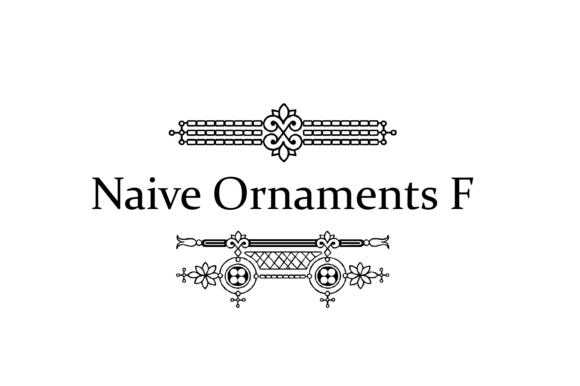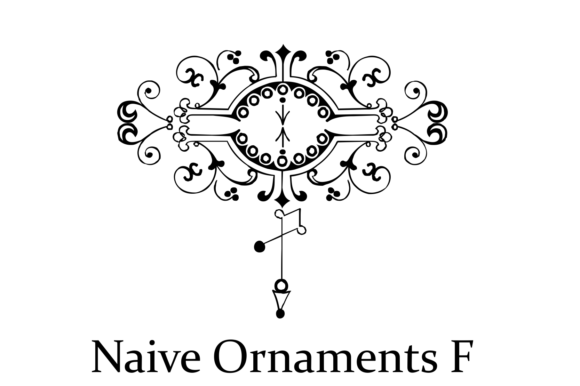
Introduction to Naive Ornaments F Font
As designers, we’ve all been there – staring at a blank canvas, trying to bring a creative vision to life. But sometimes, all it takes is the right design resource to spark inspiration. For me, it was discovering the Naive Ornaments F Font, and I’m excited to share its beauty with you.
This intricate font is a treasure trove of beautiful ornaments, waiting to be used in your next project. With its high quality design, it’s perfect for adding a touch of elegance to your creative project. Whether you’re working on a brochure, website, or social media graphic, the Naive Ornaments F Font is sure to elevate your design.
Key Features of Naive Ornaments F Font
- High-quality design resource ideal for creative projects requiring a touch of elegance and sophistication.
- Naive Ornaments F Font features a transparent background, allowing for seamless integration with various design elements.
- Perfect for use in graphic design, digital art, and other creative pursuits where intricate details are essential.
- Unique characteristic: Intricate, hand-drawn design elements that add a touch of whimsy and personality to any project.
Honest Review: Naive Ornaments F Font
As a designer, I’m always on the lookout for unique and high-quality design resources. The Naive Ornaments F Font caught my eye with its whimsical and playful feel. I downloaded it for free and was excited to see how it would work in a project.
Here are some things that I think work well with this font: ✨ It’s perfect for adding a touch of personality to a creative project, such as a children’s book or a wedding invitation. ✨ The ornaments and flourishes add a lot of visual interest and can help to break up large blocks of text. ✨ The font is available as a transparent background, which makes it easy to use with a variety of design elements.
However, I did notice a few limitations: ⚠️ The font may not be suitable for all types of projects, such as business reports or technical documents. ⚠️ Some of the ornaments and flourishes may be a bit too ornate for simple text-based projects. ⚠️ The font is not available in as many weights and styles as some other fonts, which may limit its versatility.
Overall, I think the Naive Ornaments F Font is a great addition to any designer’s toolkit. It’s perfect for adding a touch of whimsy and personality to a creative project, and the transparent background makes it easy to use with a variety of design elements. With a few limitations in mind, I would definitely recommend this font for designers looking for a unique and high-quality design resource.
- Unique and playful feel
- Perfect for creative projects
- Great for adding visual interest to text-based projects
Naive Ornaments F Font is perfect for wedding invitations, baby shower invitations, and other creative projects that require a touch of elegance. You can also use the font to add a decorative element to your blog posts, social media graphics, and other digital content.